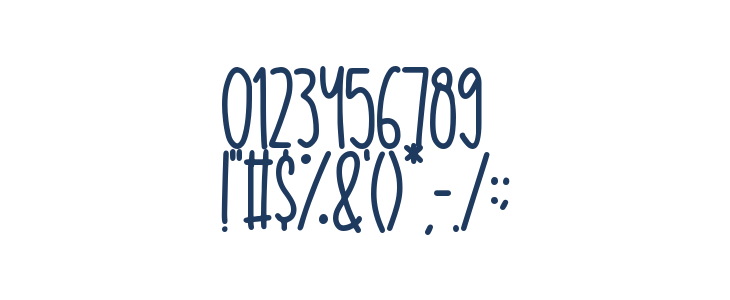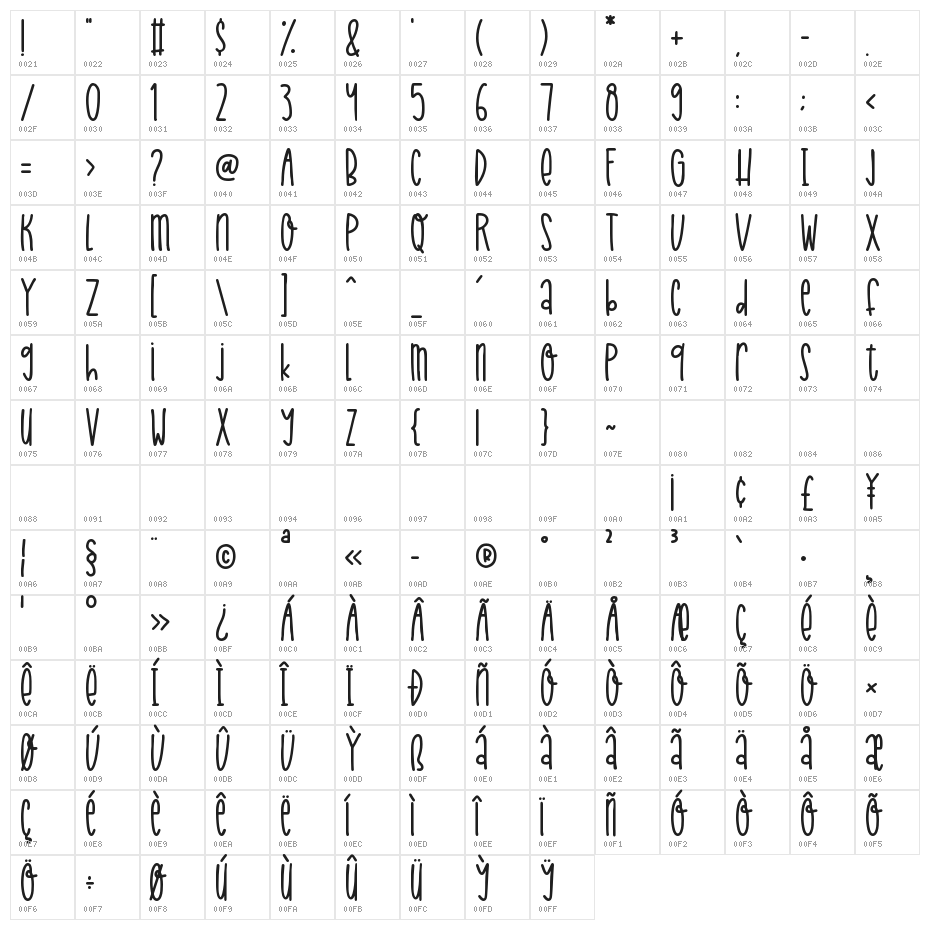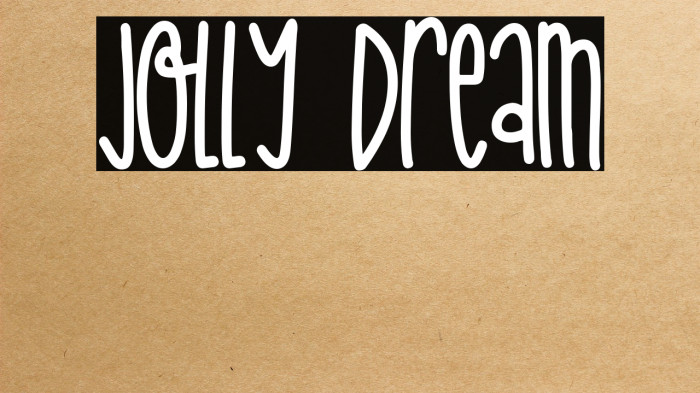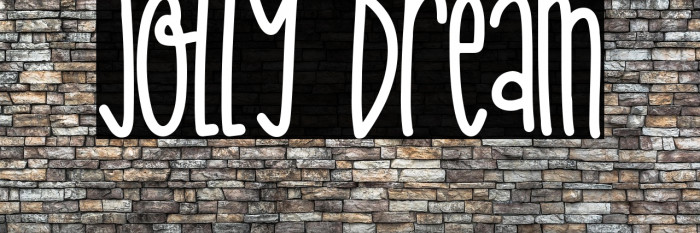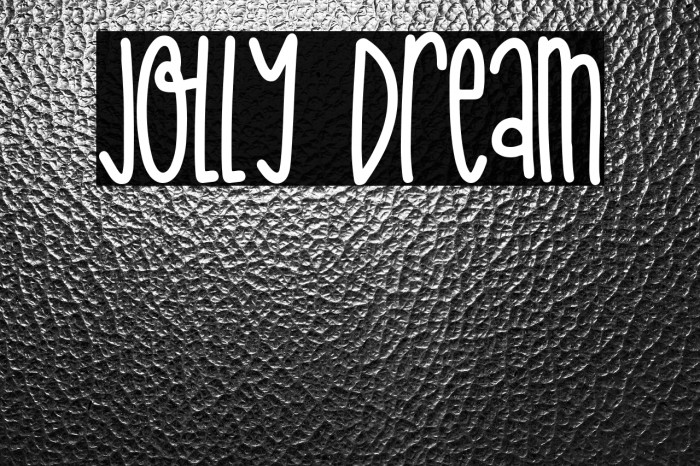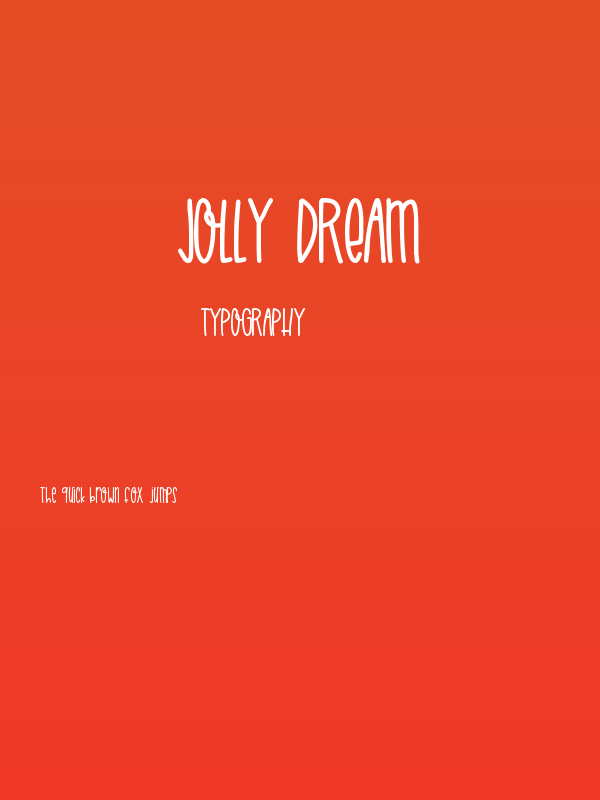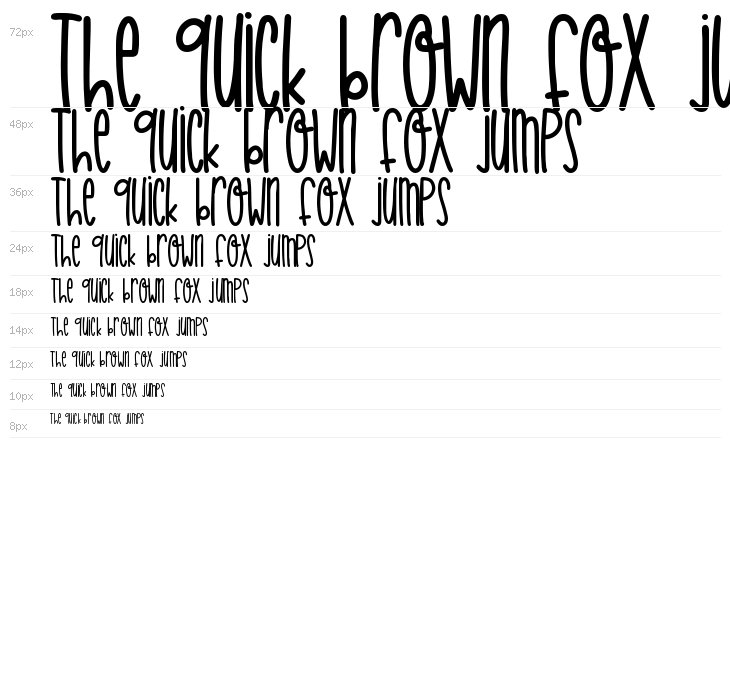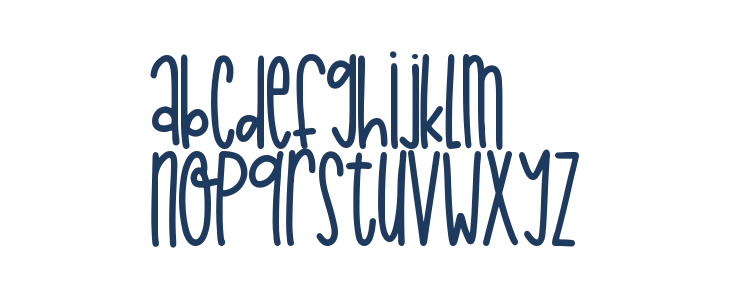
Jolly Dream Font
Jolly Dream Description
This playful and whimsical font features tall, narrow characters with a hand-drawn appearance. The strokes are smooth and consistent, giving it a casual yet artistic feel. The uppercase and lowercase letters maintain a uniform height, creating a cohesive look. Numbers and special characters are designed with the same playful style, making them easily recognizable. The overall design is reminiscent of a child's handwriting, adding a touch of innocence and creativity. This font is perfect for projects that require a fun and informal tone, such as children's books, greeting cards, or playful branding.
| Proposed Projects | Ideal for children's books, greeting cards, playful branding, and informal invitations. |